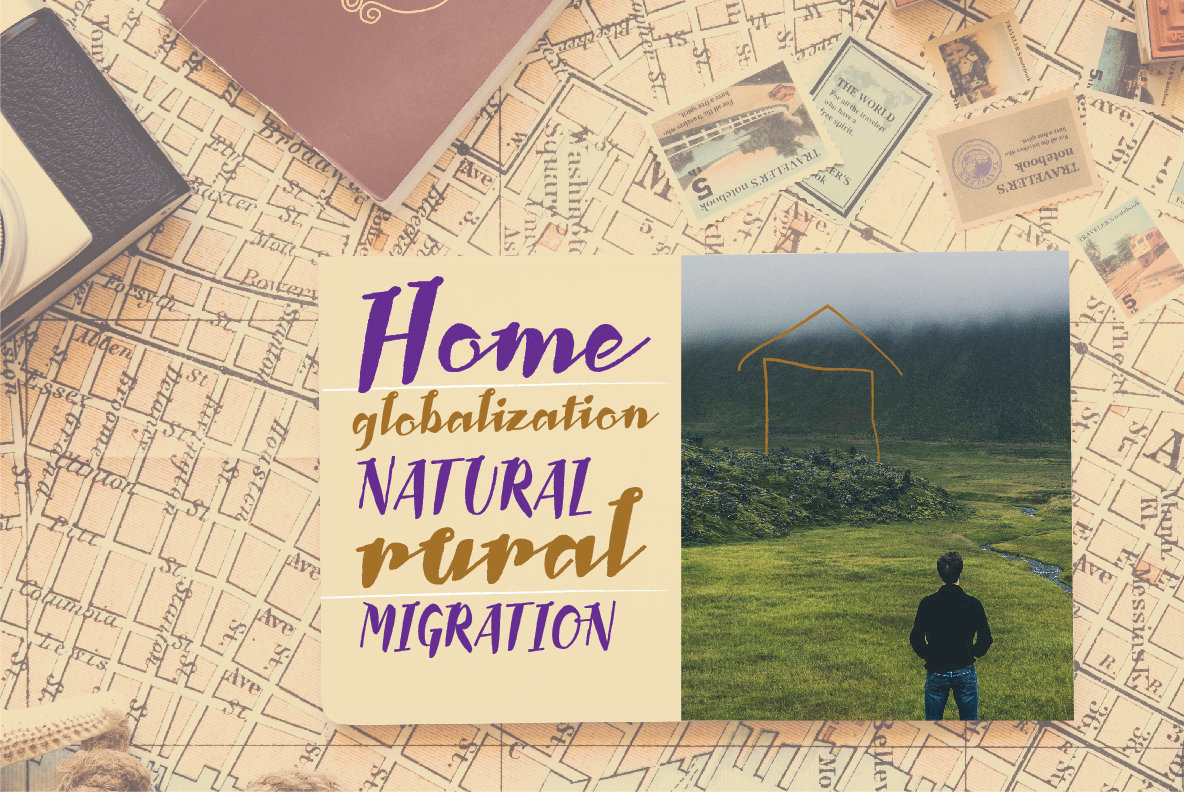
Landsick Font
Landsick Regular
Landsick is single weight script family. It's charming, it's characteristic, it's lively and playful. Ready to be used everywhere.